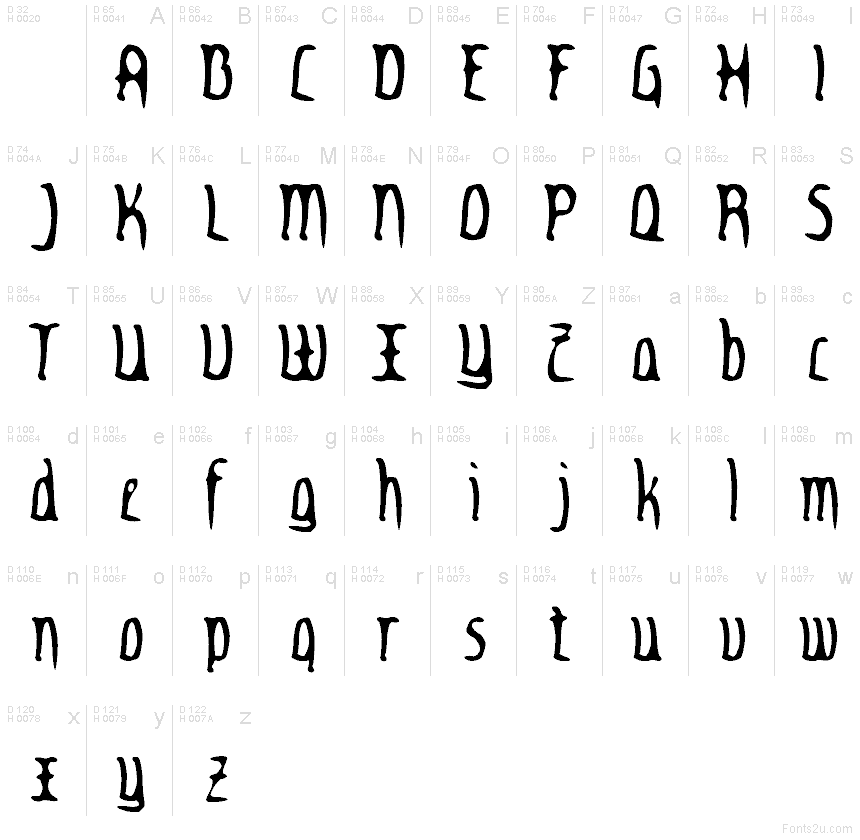
CSVachelDrawn-Regular Demo
CS Vachel Drawn font by Craft Supply Co. is a condensed gothic font with a striking, bold style and distinctive vertical emphasis. The eye-catching design is greatly attributed to the angular forms and sharp edges of the letter in addition to the tall vertical structure.
CS Vachel Drawn Demo